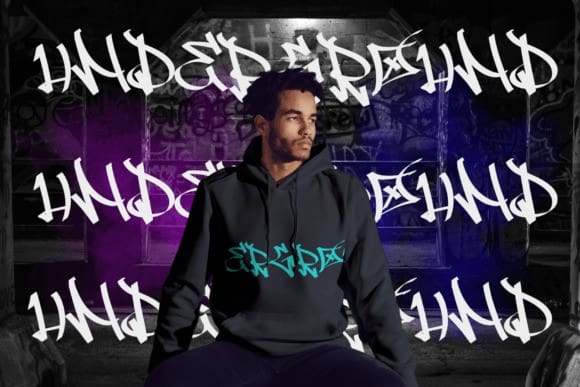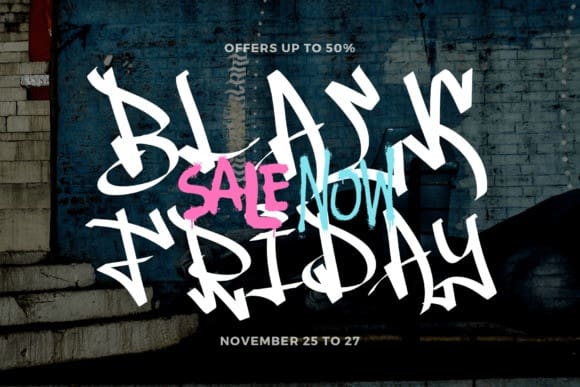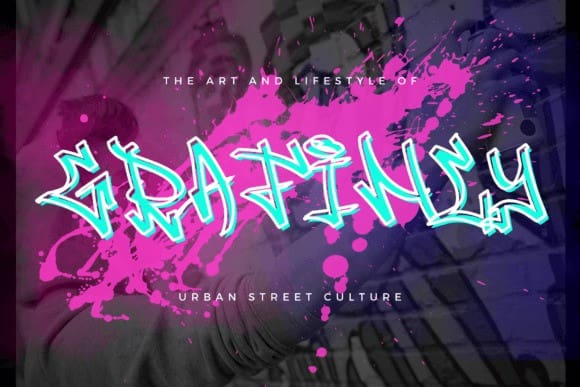
Grafincy Graffiti Font
Grafincy Graffiti Font is a graffiti street-style font that looks marvelous and is perfect for any street-style creation. Grafincy is perfect for branding projects, logos, social media posts, advertisements, product packaging, product designs, labels, and more.